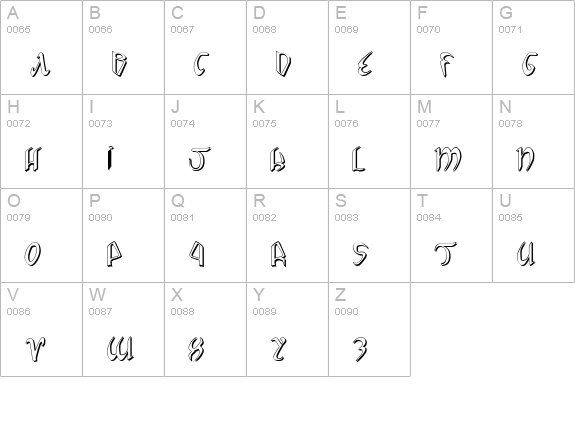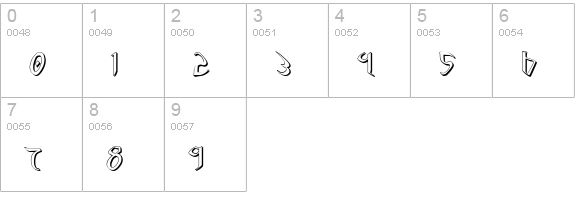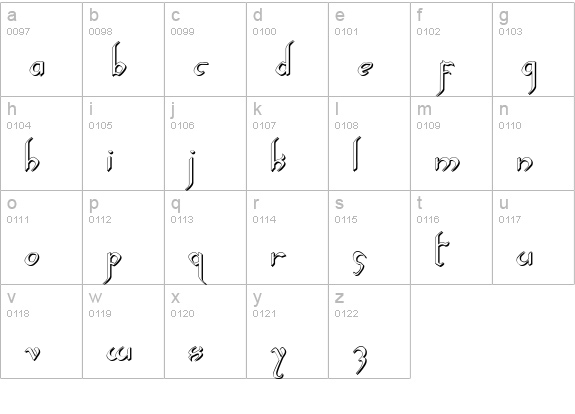
Xaphan II Shadow font is a stunning display typeface that exudes a sense of mystery and intrigue. With its intricate shadow detailing and bold, attention-grabbing design, this font is perfect for creating eye-catching titles, headers, and logos. The unique combination of sharp edges and soft shadows gives Xaphan II Shadow font a modern and edgy look that is sure to make your designs stand out. Best of all, Xaphan II Shadow font is available for free download at FontsMarket.com. Whether you're a designer looking to add a touch of drama to your projects or a creative individual seeking a font that makes a statement, Xaphan II Shadow font is the perfect choice. Don't miss out on this incredible font - download it today and unleash your creativity!